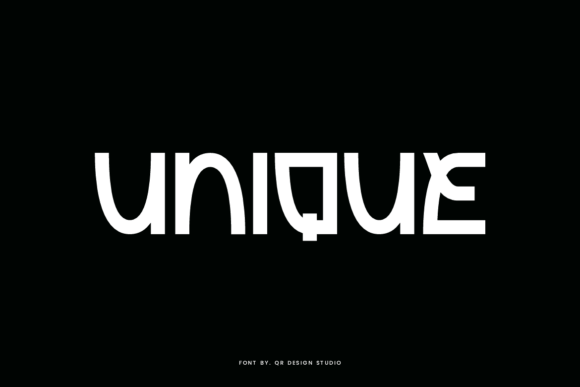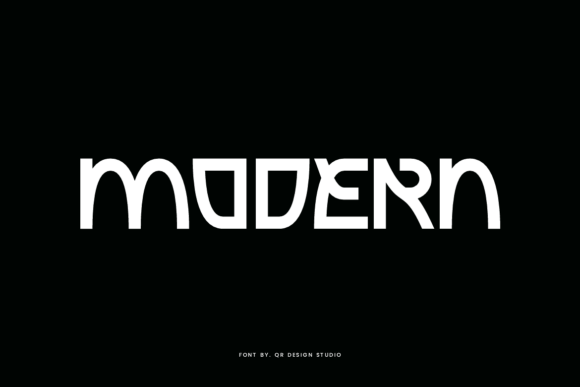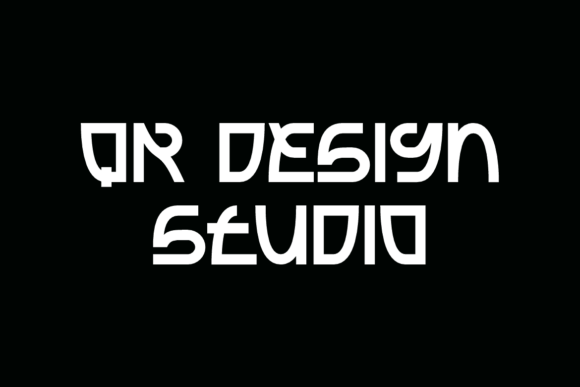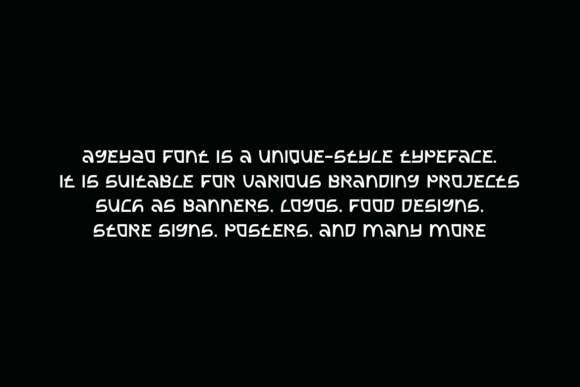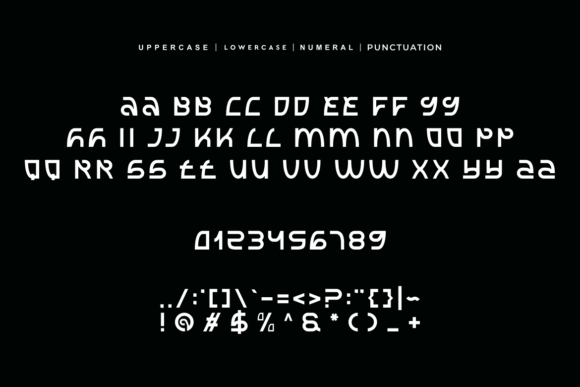
The Perfect Match: Unleashing the Power of Ageyzo Font
Have you ever been brainstorming a new design concept, only to find the perfect font hiding in plain sight? For designers, this moment is a thrill like no other. It’s the spark that ignites a creative fire, and for many, it’s the key to unlocking a project’s full potential. In this article, we’ll be shining the spotlight on Ageyzo Font, a bold and authentic display typeface that’s poised to take your designs to the next level.
Whether you’re working on a logo, sports design, or any other branding project, Ageyzo Font is the perfect companion. Its versatility and striking appearance make it an invaluable asset for designers looking to add a touch of sophistication and flair to their work. With its OTF and TTF files included, you can trust that Ageyzo Font will deliver the results you’re looking for.
Key Features of Ageyzo Font
- Unique Characteristics: Ageyzo Font features a unique, futuristic design with clean lines and geometric shapes, making it ideal for modern and tech-related applications.
Ageyzo Font Review
As a designer, I’ve had the chance to work with the Ageyzo Font, and I must say it’s an interesting combination of modern and traditional elements. ✨ Here are some things that I think work well:
- Unique aesthetic: The Ageyzo Font has a distinct, hand-drawn feel that sets it apart from more common fonts.
- Good legibility: Despite its unconventional design, the font is still easy to read, especially at larger sizes.
- Wide character set: The Ageyzo Font includes a wide range of characters, including international symbols and punctuation.
However, as with any font, there are some limitations. ⚠️ Here are a few things to keep in mind:
- Limited font weights: The Ageyzo Font is only available in a few weights, which may not be ideal for projects that require a wide range of font styles.
- Not suitable for small text: Due to its unique design, the font may become difficult to read at very small sizes.
- Not a good choice for body text: The Ageyzo Font is best used for headlines or titles, as its unconventional design may be distracting for large blocks of text.
Overall, I think the Ageyzo Font is a great choice for designers who want to add some personality to their projects. However, it may not be the best fit for every project, and it’s worth considering its limitations before committing to use it.
Ageyzo Font is ideal for creating modern and minimalist designs. Some common use cases include:
- Website headers and footers
Remember to experiment with different font sizes, colors, and styles to get the most out of Ageyzo Font.